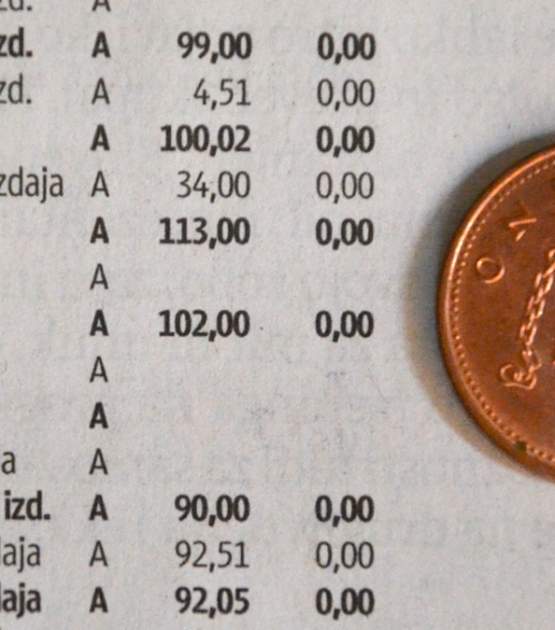
Lipa Agate
Designed by Ermin Međedović. Released 2014.
Lipa Agate is a two-height sans cleverly designed for clarity in the smallest text sizes. It focuses on microtypography, which is setting text at the smallest of scales — meaning type as small as 5–10 points. Lipa Agate is a space-saving solution with distinct glyphs and a modern look for jobs requiring minutiae without jeopardising legibility.
Lipa Agate
A two-height sans cleverly designed for clarity in the smallest text sizes.
Lipa Agate, taken from the name of the Slovenian national tree Linden, is the first salvo in an extensive type system by Ermin Međedović that will be rolled out over time. This first offering is part of a much larger coherent type system which was developed over the course of ten years. Lipa Agate focuses on microtypography, which is the ability to set text at the smallest of scales. The concept is simple: Ink spreads when it is put on paper, so taking out some ink at the joins of glyphs limits ink-spread to keep small text from looking blobby and illegible. The smaller the text, the worse the problem — meaning type as small as 5–10 points — such as in album liner notes, sports scores, footer details for film posters, data tables, or any other job requiring minutiae without jeopardising legibility. Lipa Agate is a space-saving solution with distinct glyphs and a modern look.
Lipa Agate comes in two primary versions, High and Low, which differ in the lowercase x-height and ascender height but keep the same width. Lipa Agate Low’s x-height keeps the ascenders at cap height, giving blocks of text a comparatively wider and squarish feel. Lipa Agate High has ascenders that are taller than the capital glyphs while the x-height is raised intriguingly close to the (unchanged) cap height. Text set in the High version obviously has a taller look, but it also attains more overall texture due to the varying heights along the top of each line.
Contemporary editorial design requires a high amount of flexibility to respond to various design situations in a consistent fashion. Thankfully Lipa Agate comes in regular, narrow, and condensed proportions, allowing the bold designer to set text tightly without sacrificing clarity.
With its wide current range of 24 styles and many OpenType features (small caps, arrows, info-numerals, fractions, arrows, and dingbats, stylistic alternates, and much more), Lipa Agate is ready to take on every detail. The complete Lipa Agate family, along with our entire catalogue, has been optimised for today’s varied screen uses.